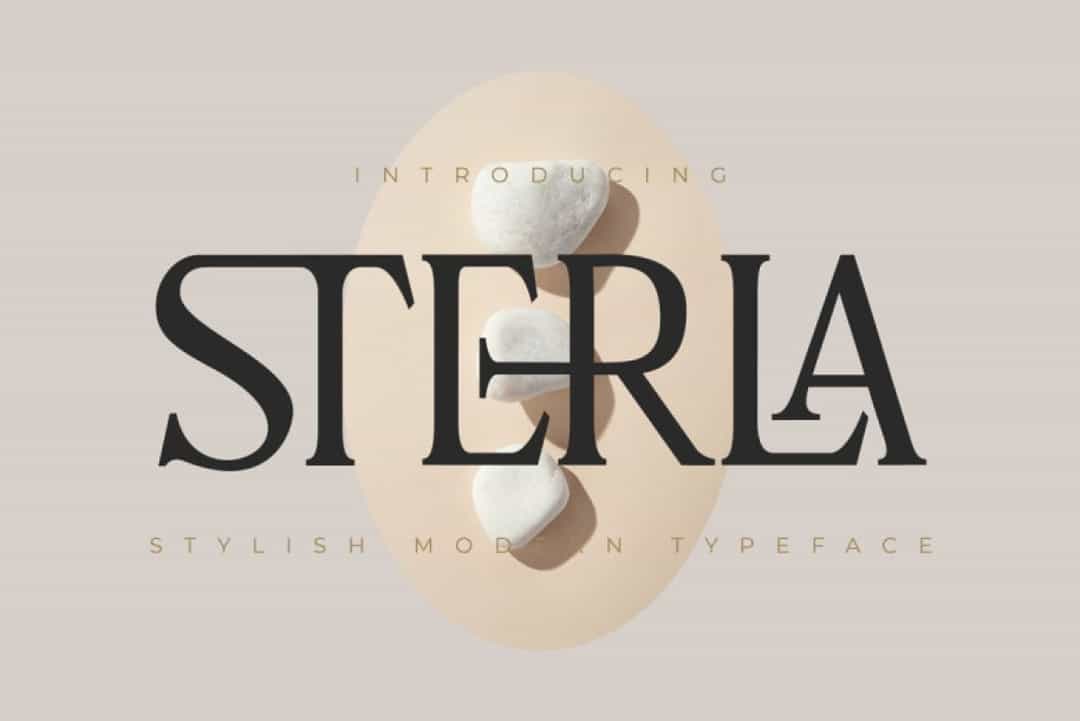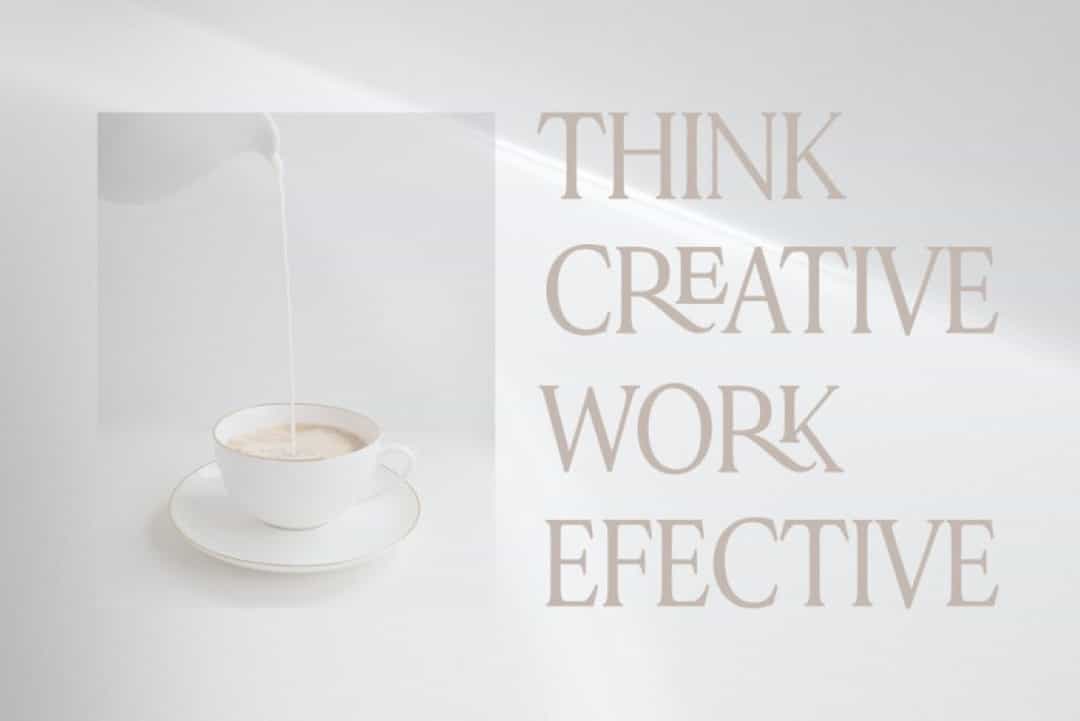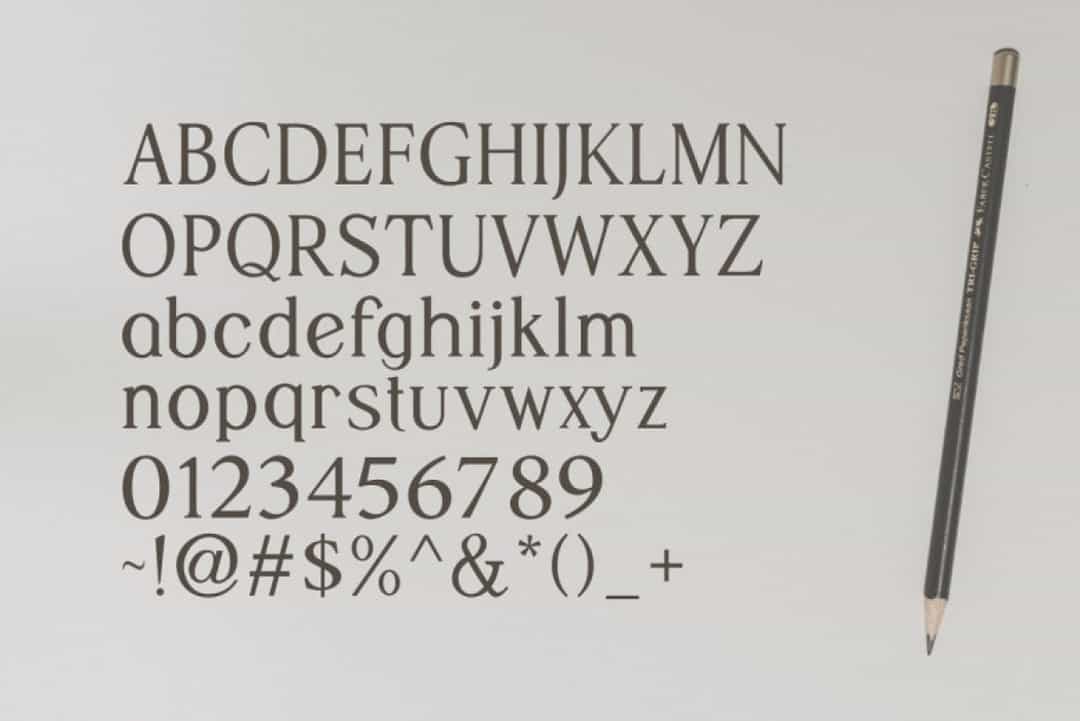
Sterla, a modern and chic serif font, can give any style an air of professionalism and formality. Are you hoping to project an image that exudes professionalism and timeless chic? If that is the case for you, Sterla Font is an option worth trying. What exactly are Sterla Serifs? Sterla serifs can be defined as ligature designs which add certain style elements that distinguish fonts – they add visual interest as part of the overall identity of a font family – so pick letters that make sense for you from different font families to find one that best suits you!